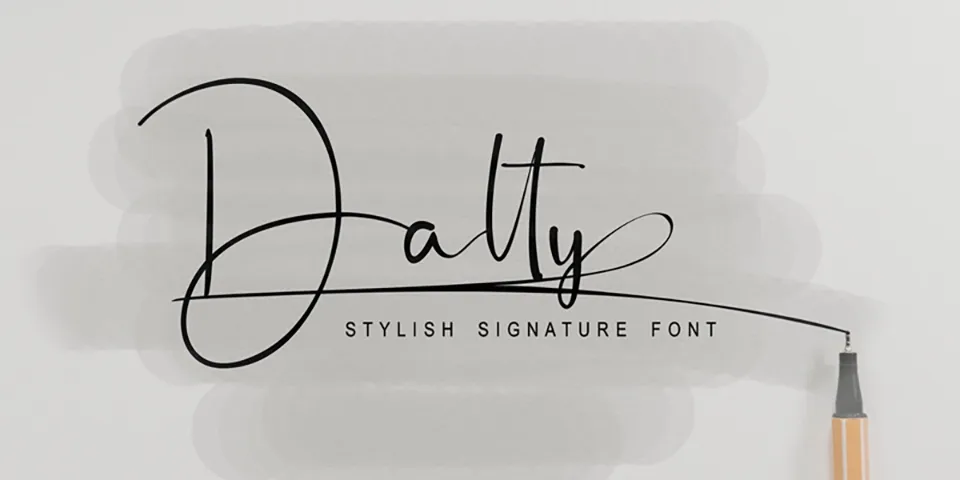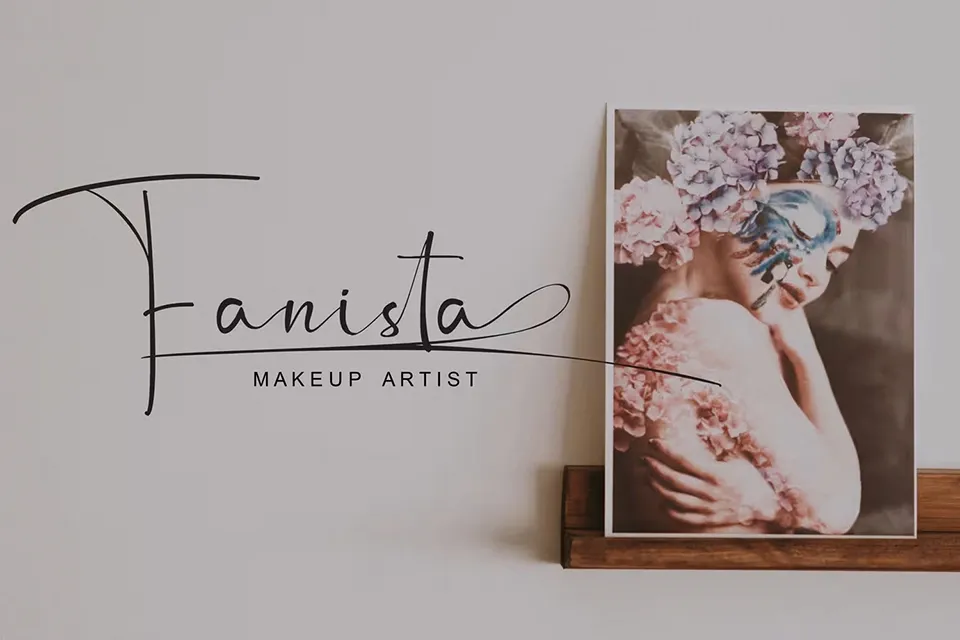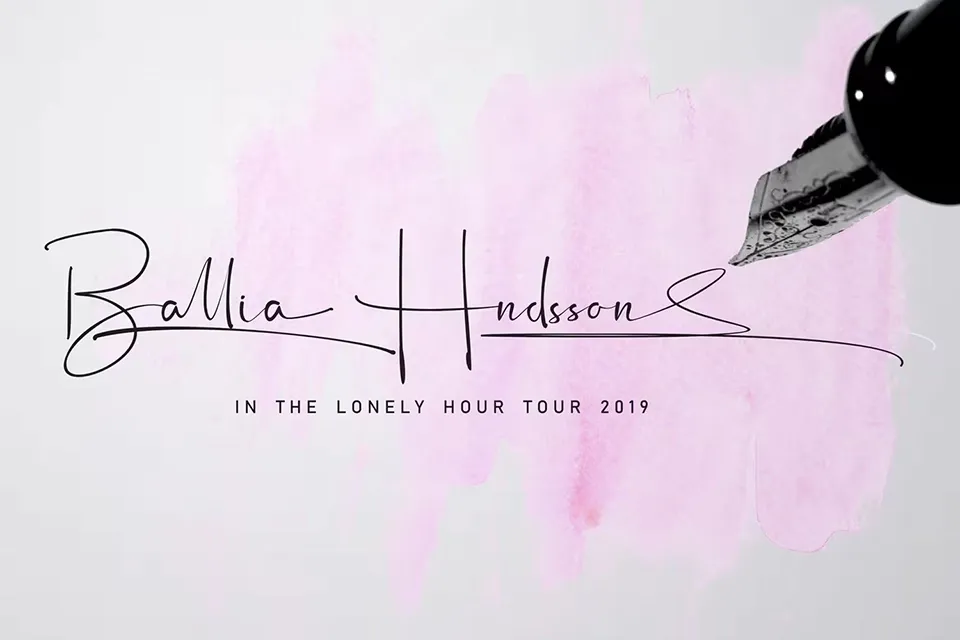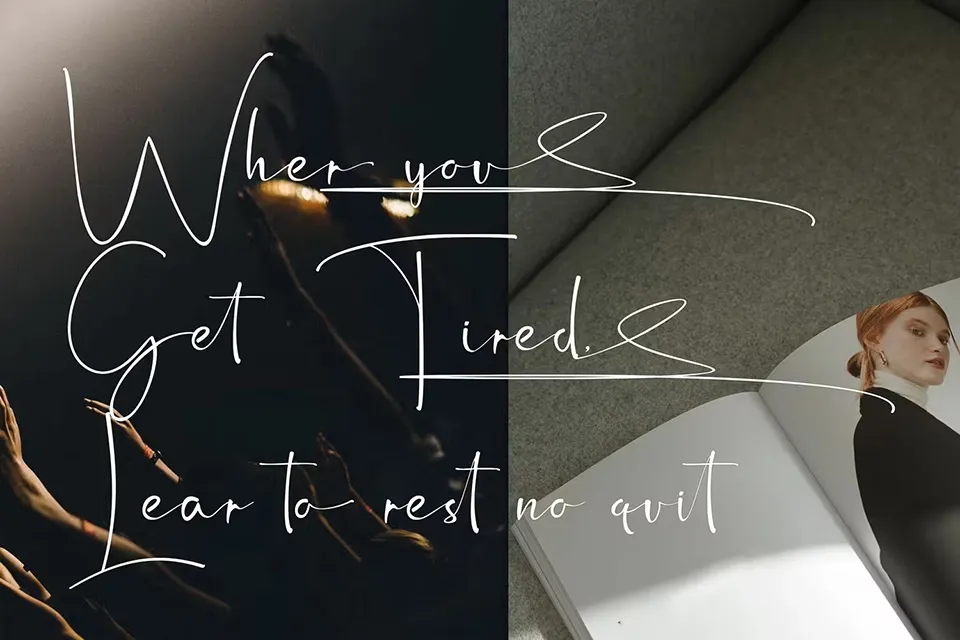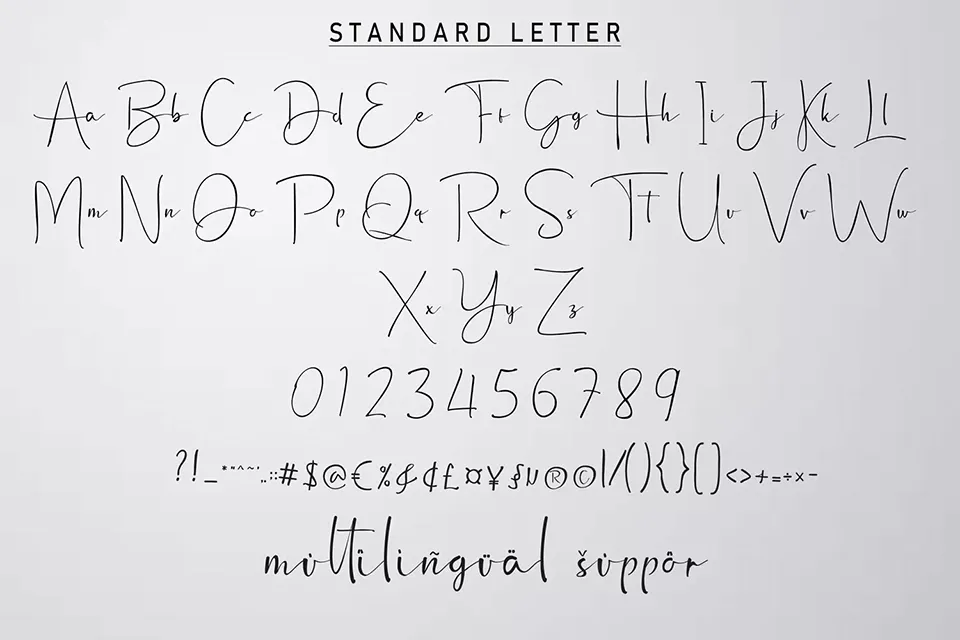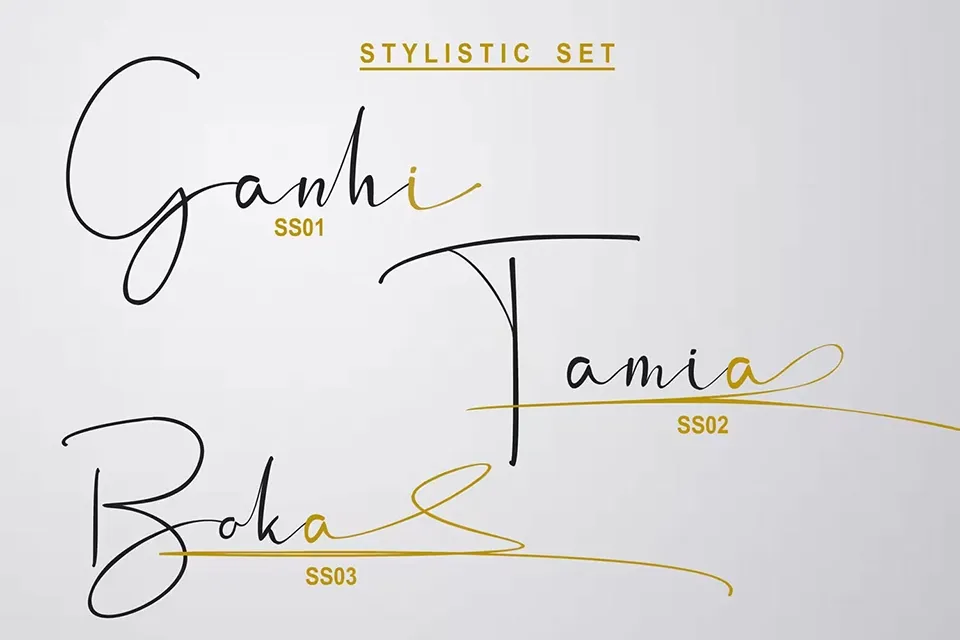
Dalty Font
Dalty Font is a stylish signature typeface that exudes elegance and modern sophistication. Its flowing, handwritten letterforms are designed to mimic the look of a personal signature, making it perfect for branding, logos, invitations, and social media graphics. Dalty’s graceful lines and unique swashes add a touch of luxury and individuality to any project, ensuring your text stands out with a refined, artistic flair. The font is easy to read while maintaining a distinctive, creative character, making it suitable for both formal and casual uses. Dalty Font brings a sense of authenticity and charm to every design.